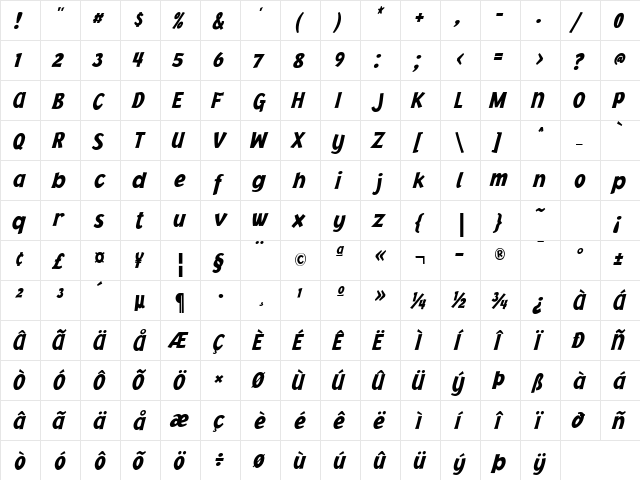
Jacoby Cond ICG Black Italic
Design Context for Jacoby Cond ICG Black Typeface
Jacoby Cond ICG Black offers clean, dependable letterforms without strong stylistic allegiance, making it a practical choice for designers who need flexibility. Its italic angle brings a sense of urgency and motion to the letterforms. Its narrow stance lets it pack a punch even in space-constrained designs.
Pro Tip: Use Jacoby Cond ICG Black for emphasis, pull quotes, and subheadings where its slanted energy can add rhythm to the layout.